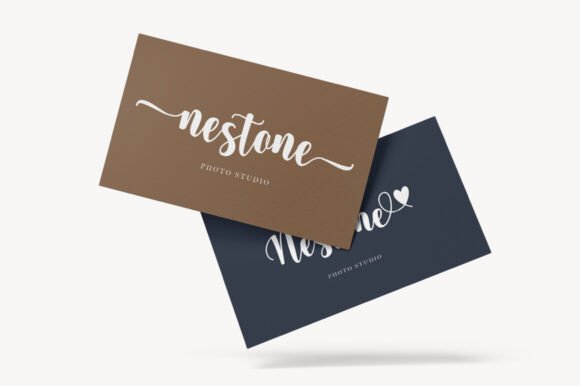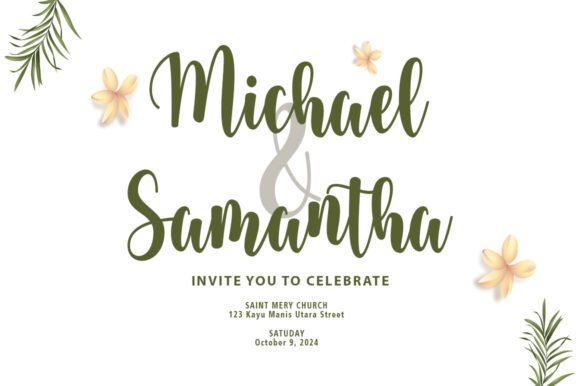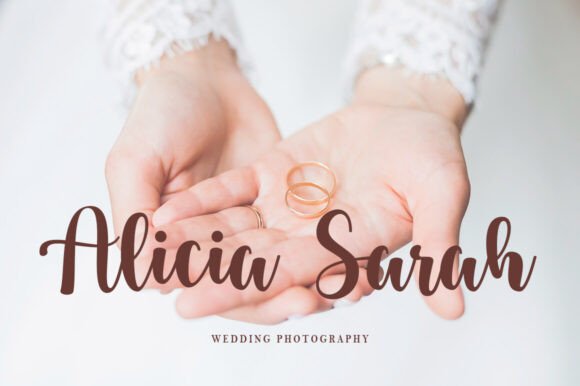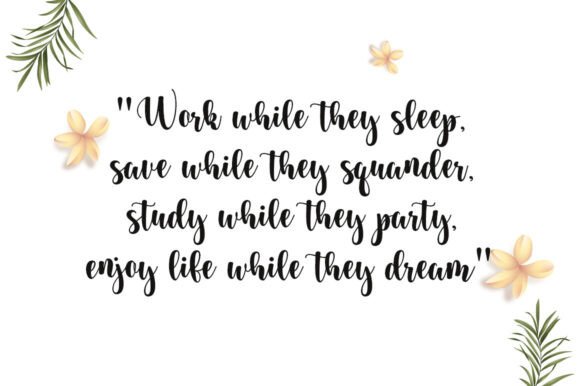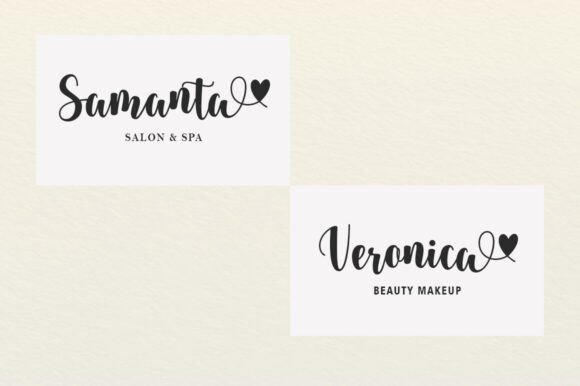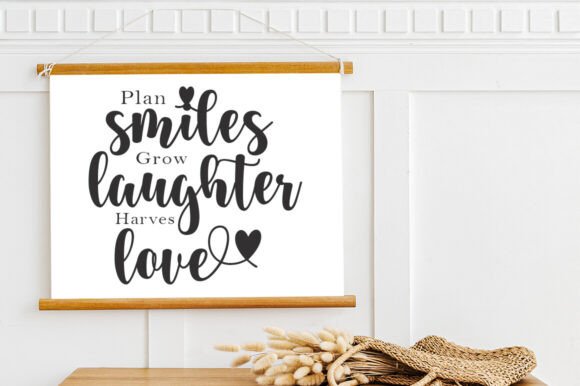
The Beauty of Handwritten Typography: Discovering the Bebillo Font
There’s something special about scribbling down a quote from your favorite book or a heartfelt message to a loved one. The feel of the pen gliding across the paper, the imperfections that make it uniquely yours – it’s a creative moment that never gets old. And what if you could capture that essence in your designs, too?
Enter the Bebillo Font, a modern calligraphy design that’s perfect for adding a touch of whimsy to your projects. With its casual, beautiful aesthetic and striped motifs, Bebillo Font is ideal for logos, product packaging, wedding invitations, and more. What makes it truly valuable for designers is its versatility and ease of use – with full access to all additional characters via PUA Unicode, you can unleash your creativity without any software hassle.
Bebillo Font Key Features
- Unique Characteristics: Bebillo Font features a unique blend of modern and traditional elements, with intricate details and subtle flourishes that set it apart from other fonts.
- Language Support: Bebillo Font supports a wide range of languages, including Latin, Cyrillic, and Greek alphabets, making it a versatile choice for global design projects.
- Font Style: Bebillo Font is available in Regular, Italic, Bold, and Bold Italic styles, providing designers with a range of options to suit different design needs.
Bebillo Font Review
I recently had the chance to work with the Bebillo Font, and I must say it’s a font that’s got both its strengths and weaknesses. Let’s dive into what works well and what doesn’t.
- Playful and whimsical feel: The Bebillo Font is perfect for creating a fun and carefree atmosphere in your designs.
- Customizable: The font comes with various weights and styles, allowing you to customize it to fit your specific design needs.
- Legibility: Despite its playful nature, the font is surprisingly legible, making it a great choice for body text.
- Lack of sophistication: The Bebillo Font may not be the best choice for more formal or professional designs.
- Overuse: Its playful nature can quickly become overwhelming if overused, so be sure to use it sparingly.
- Not ideal for small text: The font’s bold lines and playful feel can make it difficult to read in smaller text sizes.
Overall, the Bebillo Font is a fun and versatile choice for designers looking to add a playful touch to their work. While it may not be suitable for every project, it’s definitely worth considering for the right design.
Getting the Most Out of Bebillo
To get the most out of the Bebillo font, try the following:
- Use it in combination with bold or italic styles to add emphasis.
- Experiment with different font sizes to create visual hierarchy.
- Pair Bebillo with other fonts to create a unique and stylish design.
The Bebillo font is commonly used in:
- Use the Bebillo Font for the menu item names and descriptions, allowing the handwritten feel to add to the whimsical atmosphere.
- Pair the Bebillo Font with a custom watercolor font for the menu item illustrations, creating a cohesive look.
- Use a pastel color palette to create a dreamy atmosphere.
- Combine with hand-drawn watercolor illustrations of food items to add a playful touch.
- Use the Bebillo Font for the poster’s headline and main text, adding a vintage feel to the design.
- Pair the Bebillo Font with a distressed font for the background text, creating a layered look.
- Use a warm color palette with earthy tones to create a vintage feel.
- Combine with vintage travel illustrations, such as vintage airplanes or cameras, to add a retro touch.
Q: What is the character set of the Bebillo Font?
The Bebillo Font includes a comprehensive character set, covering Latin, Cyrillic, and Greek alphabets, as well as punctuation, symbols, and digits. It also supports various Unicode ranges, including emojis and special characters.